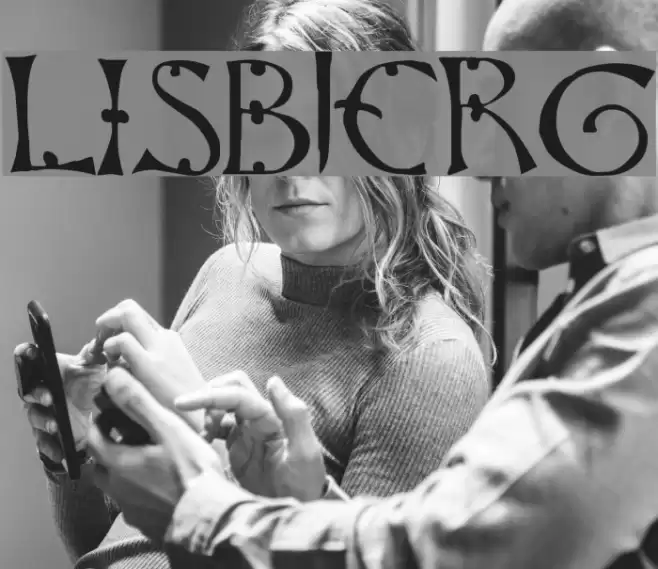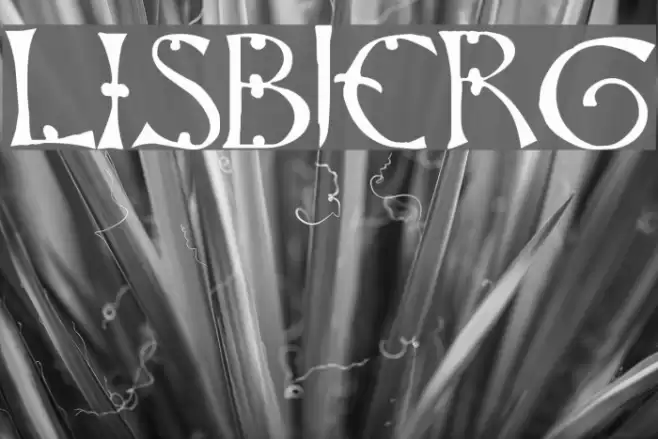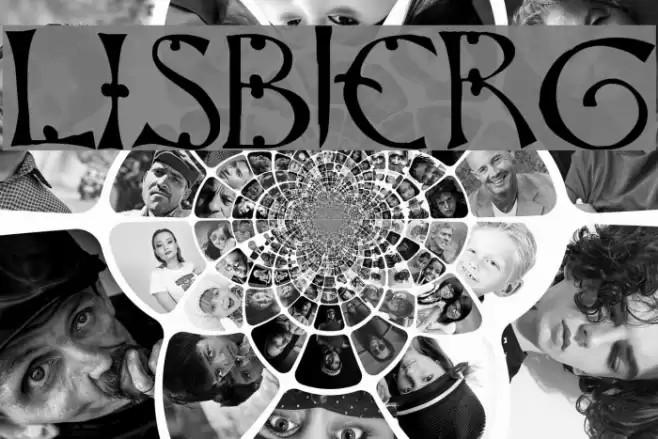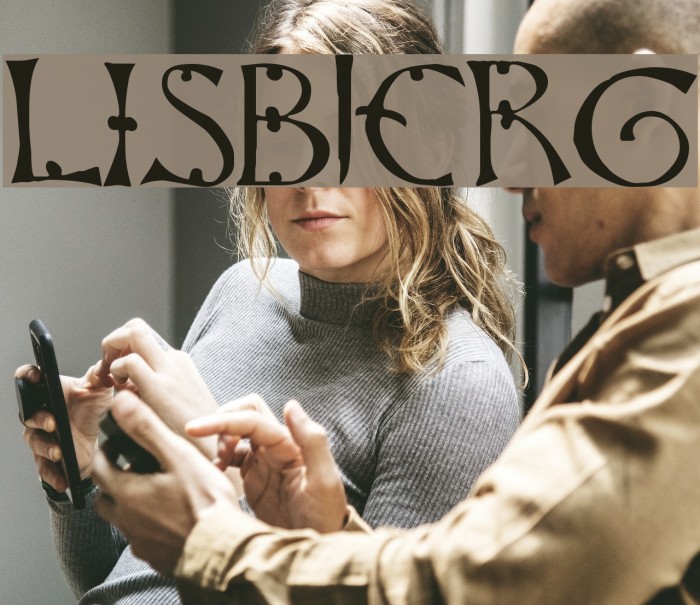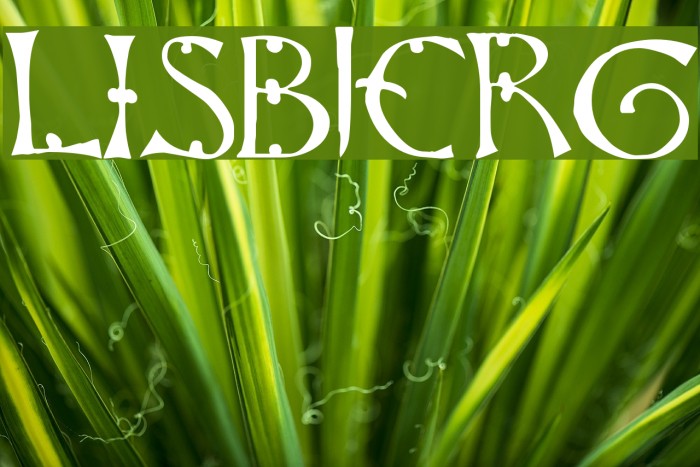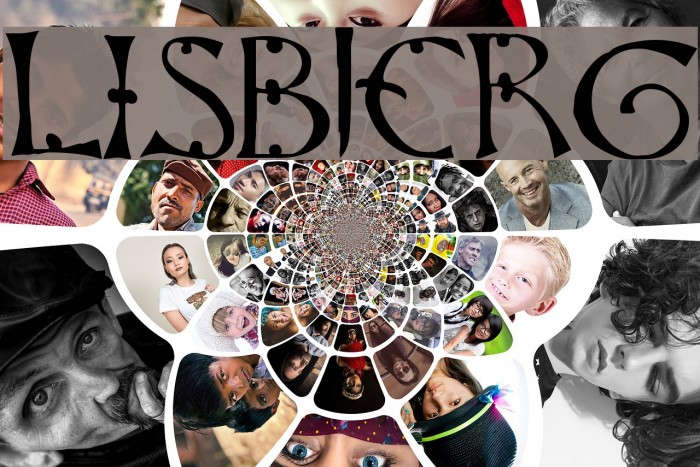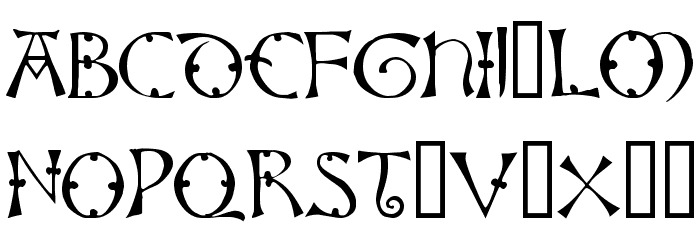
Lisbjerg Font
Lisbjerg Description
This font features a highly decorative and ornate style, characterized by intricate swirls and flourishes that extend from the main strokes of each letter. The uppercase letters are particularly elaborate, with unique embellishments that give the font a whimsical and artistic feel. The lowercase letters maintain the decorative theme but with slightly less complexity, ensuring readability. The numbers and special characters are consistent with the overall design, incorporating similar ornate elements. This font is ideal for projects that require a touch of elegance and creativity, such as invitations, posters, or branding materials.
An ornate and decorative font with intricate swirls and flourishes from Uncategorized fonts.
- Proposed Projects: Ideal for invitations, posters, branding, and creative projects requiring elegance.
- Use Case: Headlines, Logos, Artistic projects